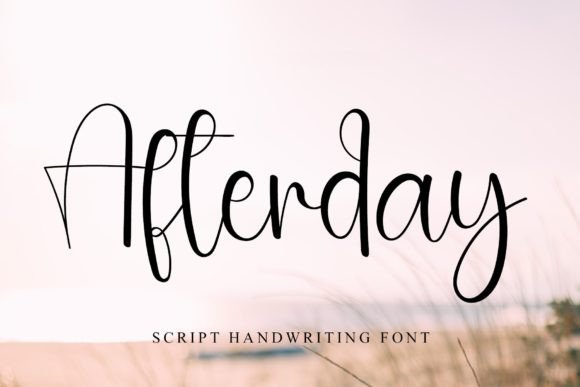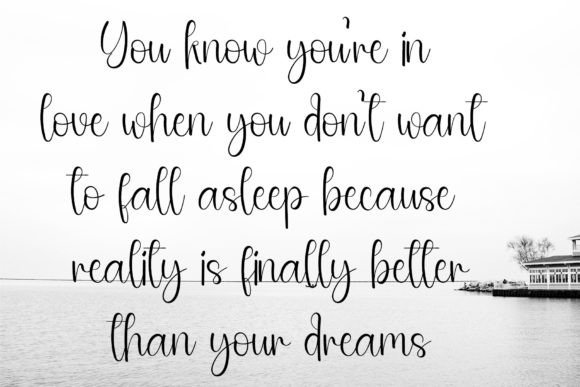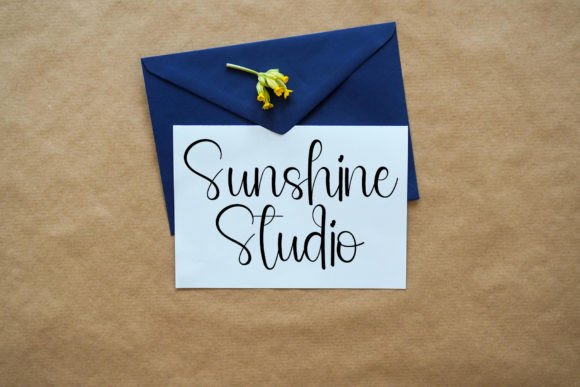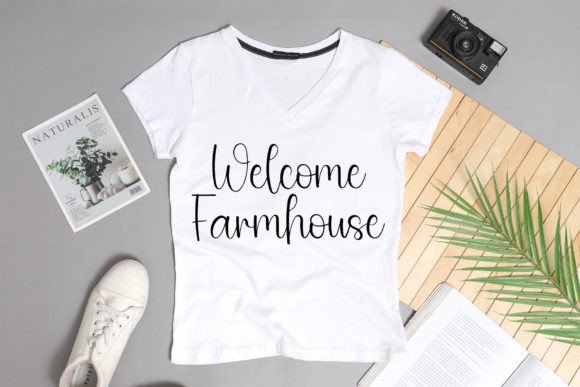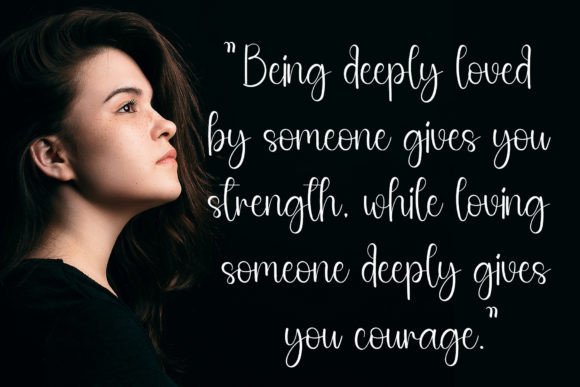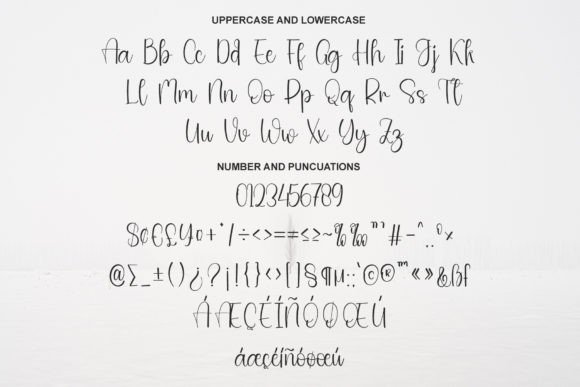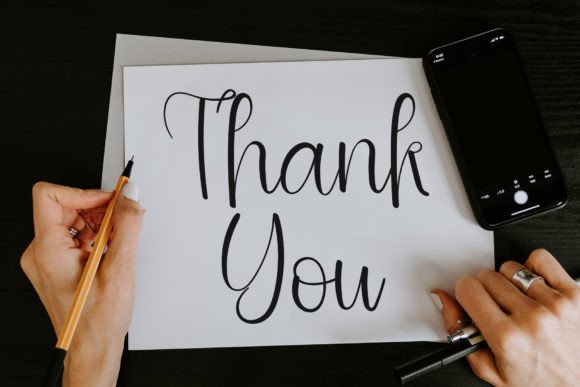
Afterday
About Afterday
Embrace the Timeless Elegance of Afterday: The Script Font of Your Dreams
Afterday is not just any font; it’s a journey into the elegance of handwritten script that perfectly captures the essence of personal touch in a digital world. This script font stands as a testament to the beauty of handcrafted design, blending delicacy with a flowing elegance that is rare and precious. With Afterday, every project becomes a work of art, echoing a style that is both timeless and deeply personal.
The Unmistakable Charm of Afterday Script Font
The Afterday script font is a celebration of individuality and grace. Its flowing strokes and delicate nuances are a nod to traditional handwriting, making every letter a piece of art. This font is the perfect choice for anyone looking to infuse their projects with emotion, personality, and a sense of authenticity that is often missing in digital communications. From wedding invitations to branding materials, Afterday elevates your designs with an unmistakable charm that is both unique and engaging.
Elevate Your Designs with the Elegance of Afterday
Choosing Afterday for your design projects means opting for distinction. Its script font elegance is versatile enough to enhance a variety of applications, ensuring that your message is not only seen but felt. This font transforms your designs into personal statements, resonating with your audience and leaving an indelible mark on their hearts.
Creating Spectacular Designs with Afterday Script Font
Afterday’s script font is a versatile tool that adapts to multiple design needs, from social media aesthetics to comprehensive branding identities. Its timeless style guarantees that your work will not only capture attention but will also remain relevant and compelling over time. Let Afterday’s script font transform your creative projects into expressions of elegance that speak directly to the soul.
In conclusion, Afterday script font is more than a mere collection of letters; it’s a doorway to a world where elegance and personal expression reign supreme. Its delicate, flowing nature makes it an essential element for anyone looking to bring a touch of sophistication and uniqueness to their designs. Embrace the timeless beauty of Afterday, and let it infuse your projects with the unmatched charm of handwritten script.